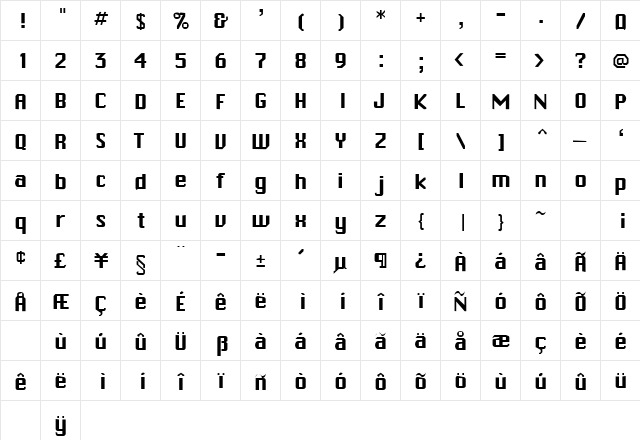
CALVIN Regular
Design Context for CALVIN Typeface
CALVIN is a composed and adaptable typeface that performs quietly and consistently across a wide range of design contexts.